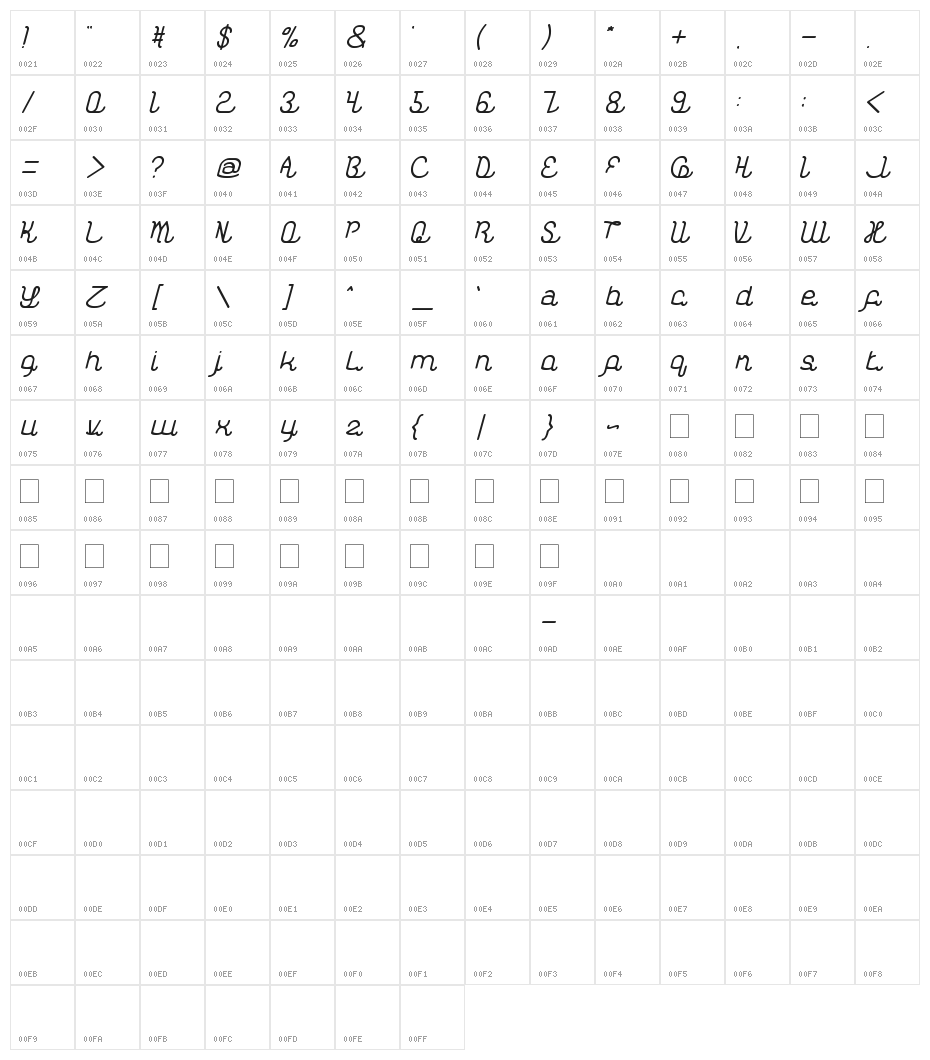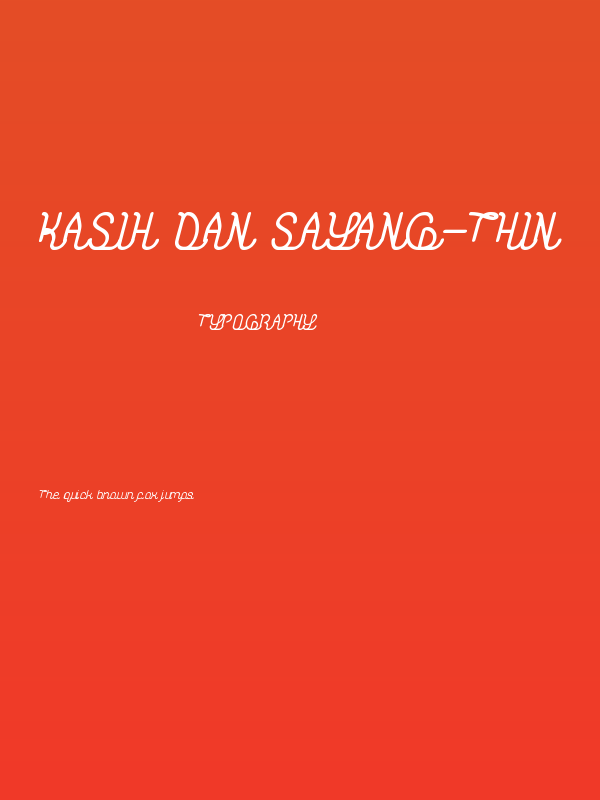
Kasih Dan Sayang-thin Font
Kasih Dan Sayang-thin Description
This font features a playful and flowing script style that mimics the fluidity of handwriting. Each character is connected, creating a seamless and elegant appearance. The strokes are consistent in thickness, giving it a uniform look. The uppercase letters are slightly more embellished, while the lowercase letters maintain a simpler form. Numbers and special characters are designed to match the overall aesthetic, ensuring cohesion across all text elements. The font's design is both modern and approachable, making it suitable for a variety of creative applications.